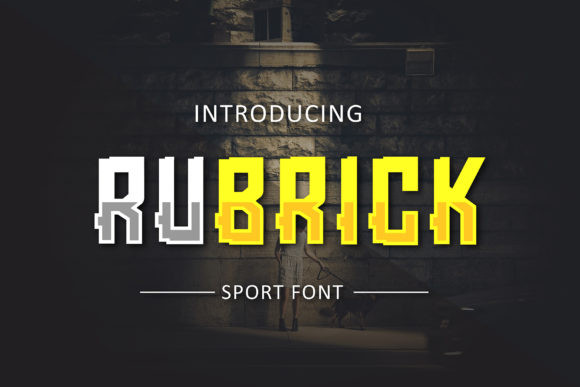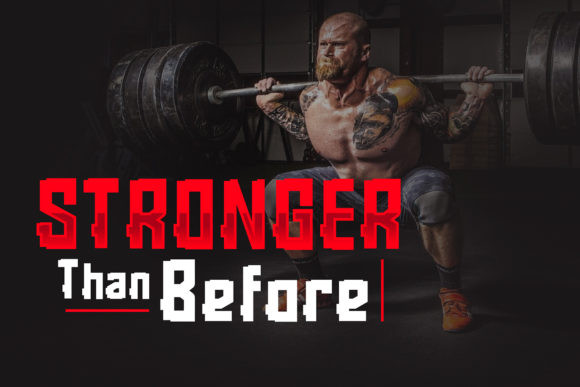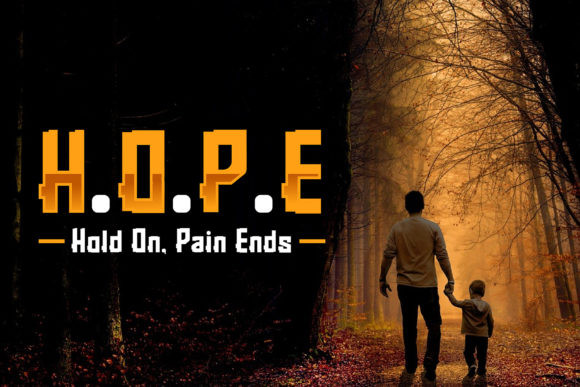
Rubrick Font
Rubrick is a modern, bold and sporty display font that will make any design idea stand out. Get inspired by its outstanding dynamic design!